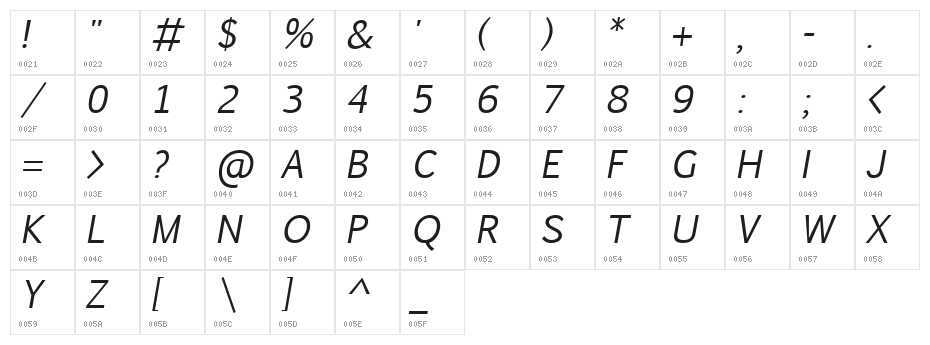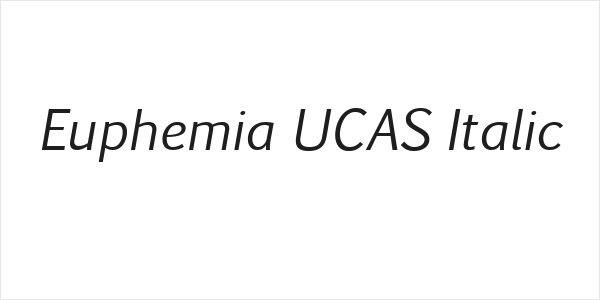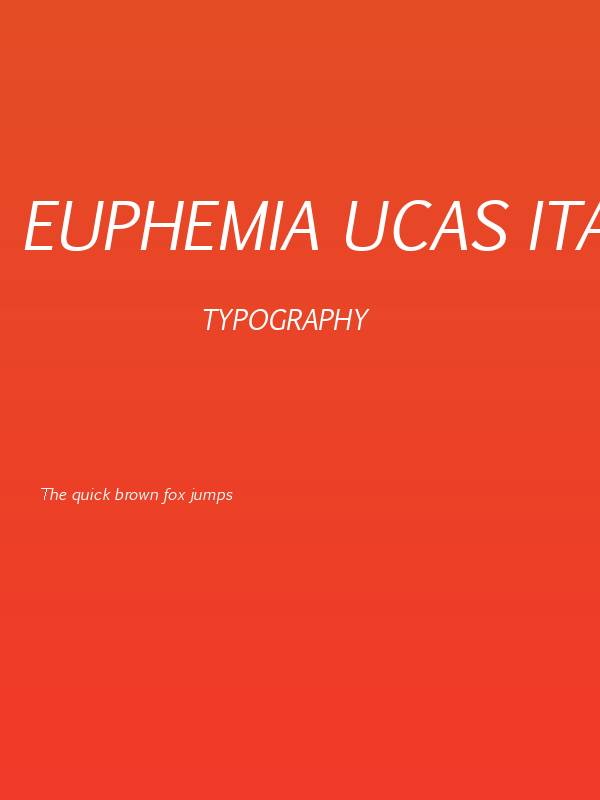
Euphemia UCAS Italic Font
Euphemia UCAS Italic Description
This font features a clean and modern design with a slight slant, giving it an italicized appearance. The characters are well-proportioned, with a consistent stroke width that provides a uniform look across both uppercase and lowercase letters. The numerals are clear and distinct, making them easy to read. Special characters are elegantly integrated, maintaining the font's overall sleek aesthetic. The font's style is versatile, suitable for both digital and print media, offering a professional yet approachable feel.
| Proposed Projects | Ideal for use in professional documents, websites, and branding materials where a modern and clean look is desired. |